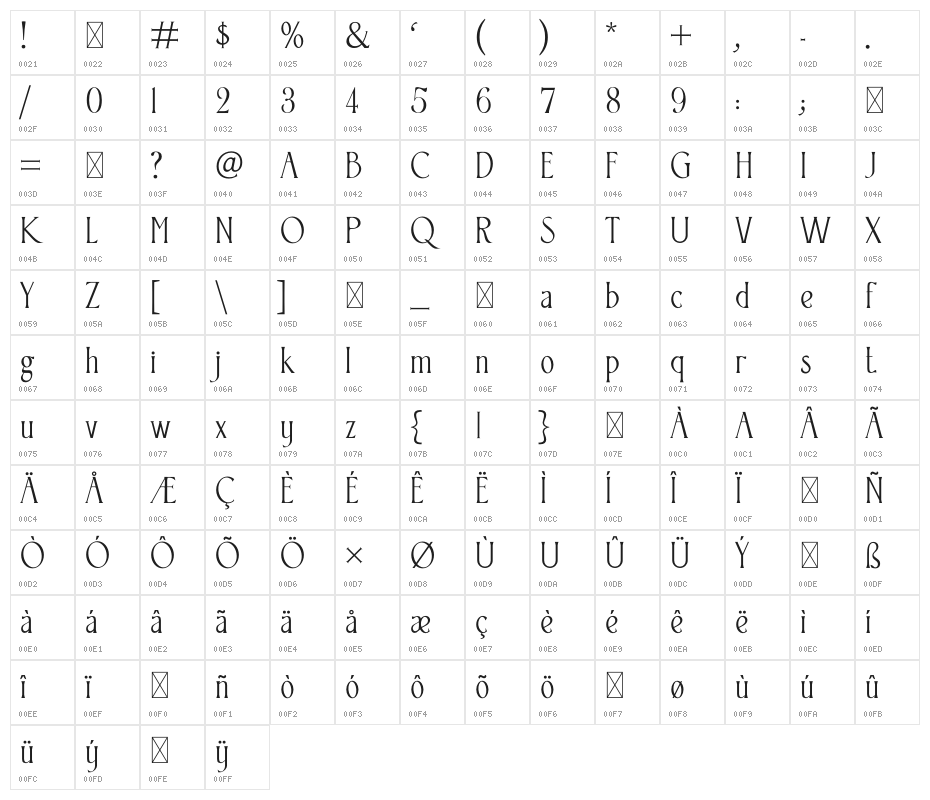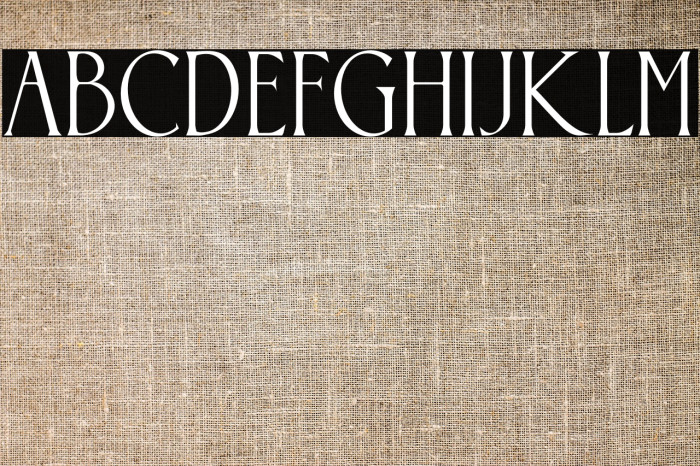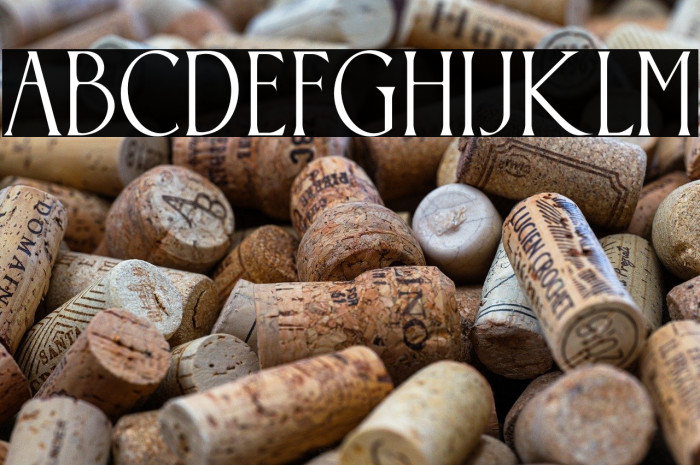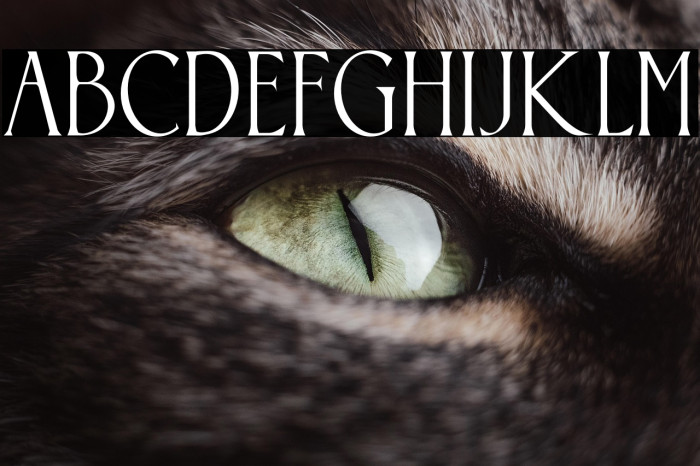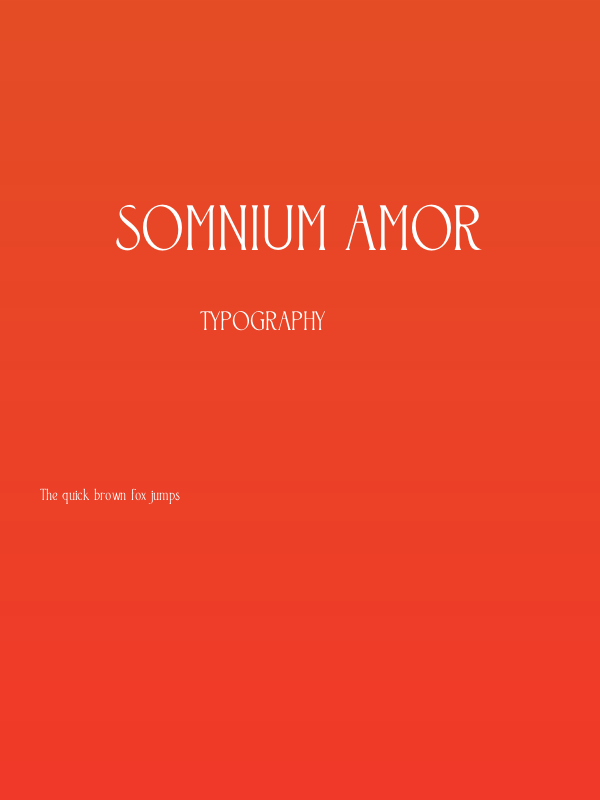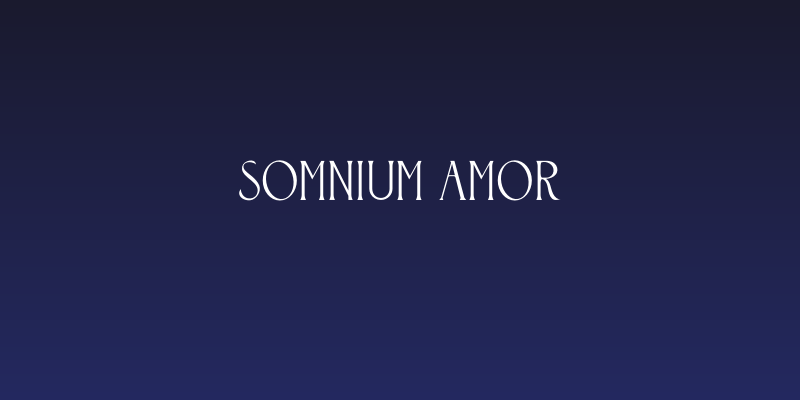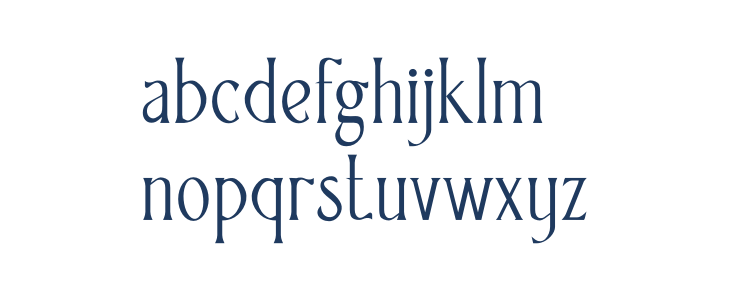
Somnium Amor Font
Somnium Amor Description
This font features a sophisticated and elegant design, characterized by its high contrast between thick and thin strokes. The serifs are pronounced, adding a touch of classic elegance, while the overall form maintains a modern sensibility. The uppercase letters are tall and stately, with a slight curvature that adds a graceful flow. Lowercase letters are more compact, yet they retain the same elegant style. The numerals are distinct and clear, ensuring readability. Special characters are well-integrated, maintaining the font's cohesive aesthetic. This font's design is both timeless and versatile, suitable for a variety of applications.
| Use Case | Headlines, Logos, Editorial design |
| Proposed Projects | Ideal for luxury branding, editorial design, wedding invitations, and high-end product packaging. |